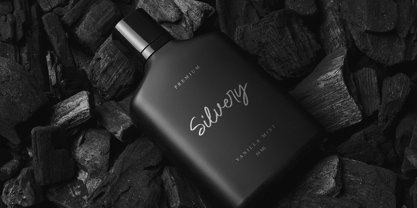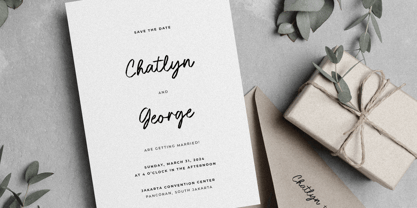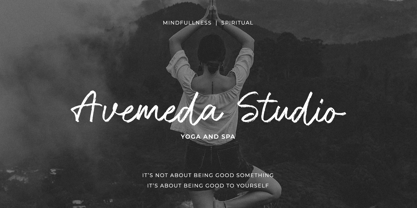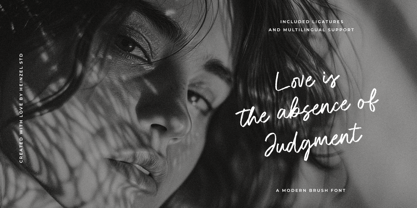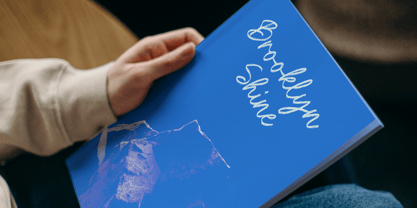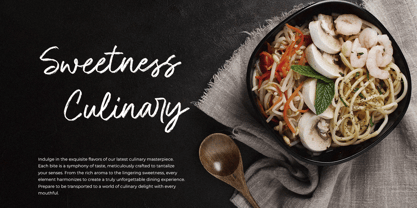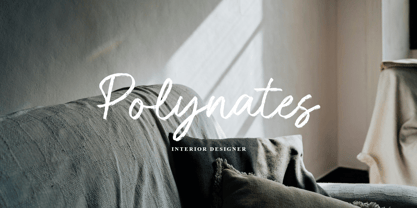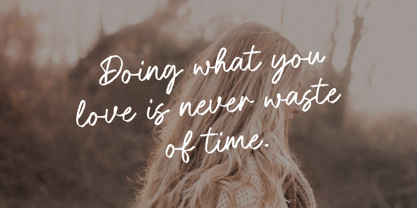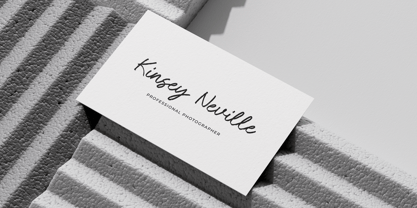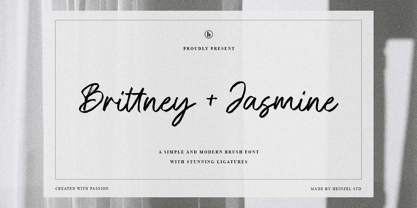
Brittney & Jasmine
by Heinzel Std
The Brittney & Jasmine Font Family was designed by Nofi Sofyan Hadi and published by Heinzel Std. Brittney & Jasmine contains 1 styles.
Brittney and Jasmine is a modern brush script font that combines bold strokes with a touch of elegance. Designed to capture the dynamic feel of hand-lettering, this font delivers a stylish and contemporary look that's perfect for branding, logos, invitations, social media graphics, and more. With its natural brush texture and fluid letterforms, Barnsley Brush adds personality and flair to any design project, making your words stand out with effortless charm.